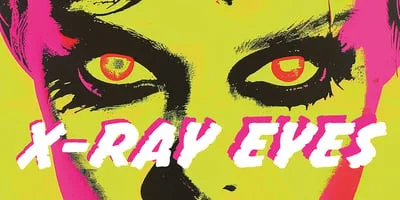
Mission Sinister Font
Mission Sinister Font is perfect for horror movie titles, thriller book covers, Halloween event posters, dark mystery branding, gothic fashion labels, haunted attraction signage, suspense game interfaces, and atmospheric horror campaigns. This ominous typeface excels in applications where dark mystery and sinister atmosphere are essential.
What makes Mission Sinister Font so exciting is its chilling ability to create an atmosphere of suspense and foreboding through sharp, menacing letterforms that embody the psychological tension of thriller narratives and horror storytelling. The font features angular character shapes with shadowy details and sinister styling that evoke images of dark corridors, mysterious missions, and spine-tingling suspense. Its thriller-focused design philosophy combines horror authenticity with contemporary readability, making it perfect for entertainment brands seeking to convey danger, mystery, and connection to horror culture and suspense thriller communities.
Mission Sinister Font belongs to the horror display font family, specifically designed for thriller and dark entertainment-themed branding applications. This typeface family emphasizes ominous visual impact through shadow-inspired styling and sinister character elements, ensuring authentic horror presentation across various thriller and dark entertainment-focused design projects.
Unleash dark storytelling power with Mission Sinister Font, a typeface that embodies the chilling atmosphere of horror narratives and thriller suspense. This menacing font delivers exceptional intensity for horror applications, featuring comprehensive character sets with dark symbols and sinister punctuation marks that capture the essence of psychological thriller and supernatural mystery. Its sharply crafted letterforms maintain excellent readability while preserving the authentic horror aesthetic across various sizes, from small book spines to massive haunted attraction entrance signs. The font's distinctive sinister personality makes it invaluable for designers creating horror brands, thriller materials, and dark entertainment content where conveying suspense, danger, and atmospheric tension is crucial for engaging audiences seeking thrilling, spine-chilling entertainment experiences.